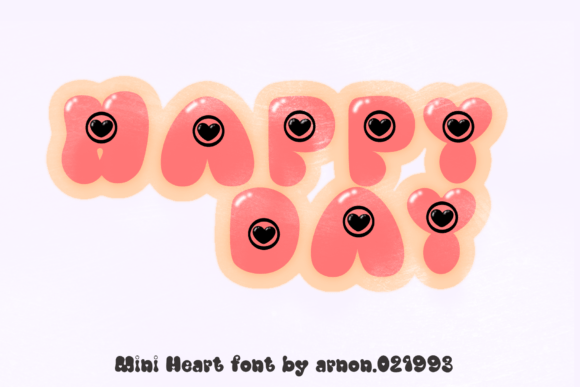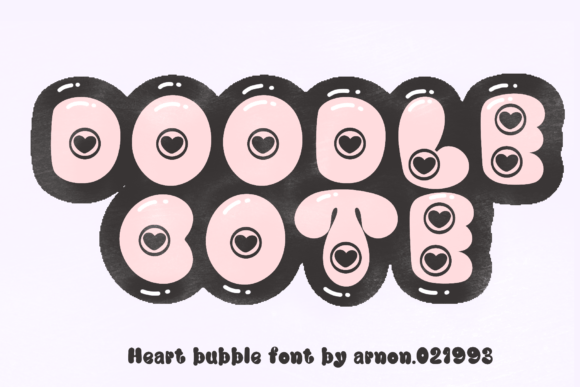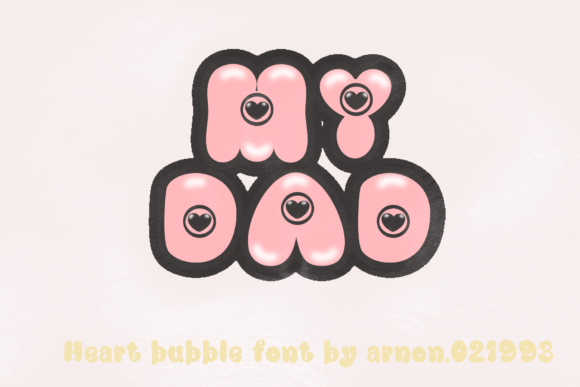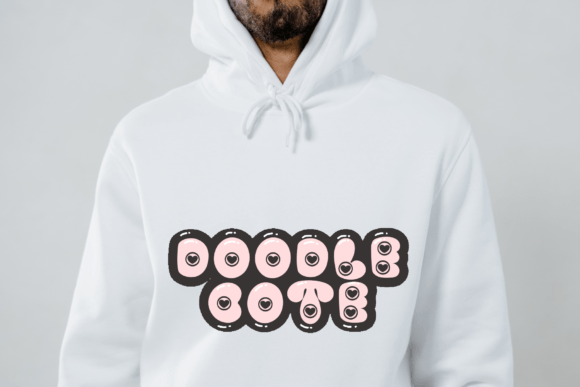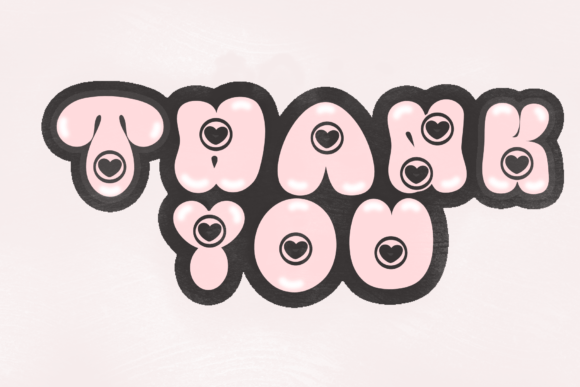
Introducing the Heart Bubble Font: Add a Touch of Whimsy to Your Designs
Are you looking for a font that can add a dash of playfulness and charm to your designs? Look no further than the Heart Bubble Font! This adorable font features playful hearts printed in letters, making it perfect for a wide range of creative projects. In this article, we’ll take a closer look at the Heart Bubble Font, its features, and how you can use it to make your messages super cute.
What is the Heart Bubble Font?
The Heart Bubble Font is a unique and eye-catching font that incorporates playful hearts into its lettering. The font features bold, bubbly hearts that replace traditional letterforms, creating a fun and whimsical effect. The hearts are intricately designed to resemble bubble letters, making it perfect for designs that require a touch of playfulness.
Features of the Heart Bubble Font
- Playful Hearts: The font features playful hearts that replace traditional letterforms, creating a fun and whimsical effect.
- Bold and Bubbly: The hearts are designed to resemble bubble letters, giving the font a bold and eye-catching appearance.
- Easy to Read: Despite its playful design, the font is easy to read, making it perfect for use in a wide range of creative projects.
- Versatile: The Heart Bubble Font can be used in a variety of designs, from posters and greeting cards to t-shirts and branding materials.
Uses of the Heart Bubble Font
The Heart Bubble Font is perfect for a wide range of creative projects, including:
- Posters: Add a touch of whimsy to your posters with the Heart Bubble Font. It’s perfect for promoting events, products, or services.
- Greeting Cards: Make your greeting cards extra special with the Heart Bubble Font. It’s perfect for birthdays, Valentine’s Day, and other special occasions.
- T-Shirts: Create fun and playful t-shirts with the Heart Bubble Font. It’s perfect for designs that require a touch of personality.
- Branding Materials: Use the Heart Bubble Font to create unique and eye-catching branding materials, such as business cards, brochures, and flyers.
- Quotes: Add a touch of playfulness to your quotes with the Heart Bubble Font. It’s perfect for social media posts, posters, and other designs.
Tips for Using the Heart Bubble Font
Here are some tips for using the Heart Bubble Font in your designs:
- Use it Sparingly: While the Heart Bubble Font is playful and fun, it can be overwhelming if used excessively. Use it sparingly to add a touch of whimsy to your designs.
- Pair it with Other Fonts: Pair the Heart Bubble Font with other fonts to create a unique and eye-catching effect.
- Experiment with Colors: Experiment with different colors to find the perfect combination that matches your brand or design.
The Heart Bubble Font is a unique and playful font that can add a touch of whimsy to your designs. With its bold and bubbly hearts, it’s perfect for a wide range of creative projects, from posters and greeting cards to t-shirts and branding materials. Whether you’re a designer or crafter, the Heart Bubble Font is a great addition to your font collection. So why not give it a try and see how it can make your messages super cute?
- Is the Heart Bubble Font easy to read? Yes, despite its playful design, the Heart Bubble Font is easy to read, making it perfect for use in a wide range of creative projects.